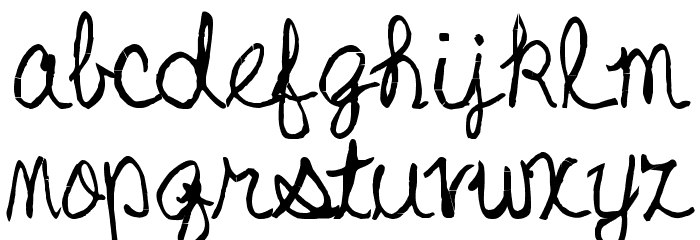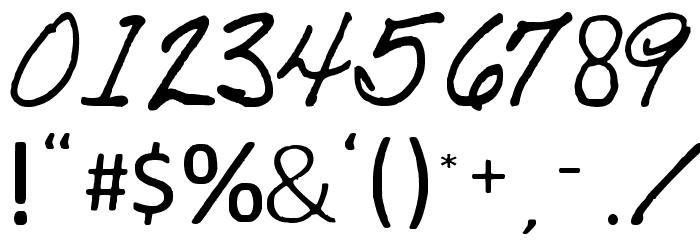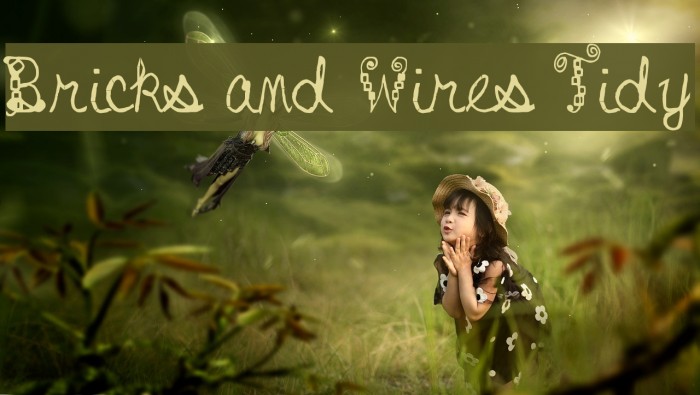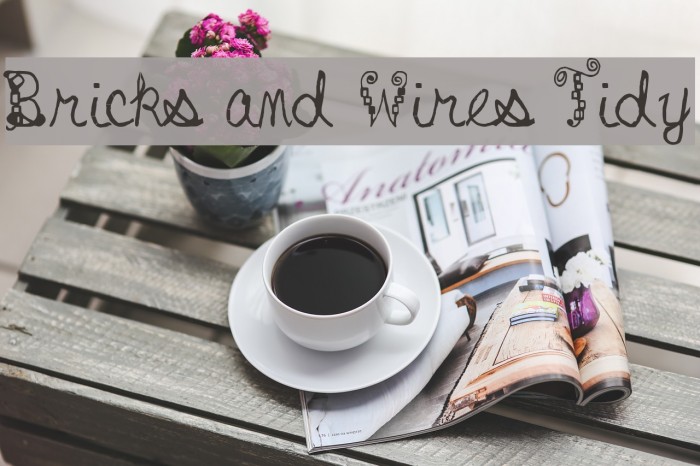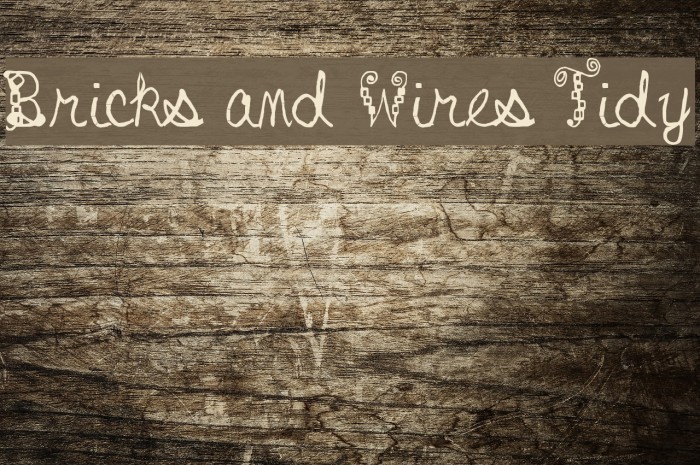
Bricks and Wires Tidy Font
This font features a playful and whimsical design, characterized by its intricate and decorative elements. The uppercase letters are adorned with curly and looped embellishments, giving them a unique and artistic flair. The lowercase letters maintain a more casual and handwritten style, providing a nice contrast to the ornate uppercase. Numbers and special characters follow the same playful theme, making this font ideal for creative and fun projects. The overall appearance is lively and engaging, perfect for capturing attention.
A whimsical and decorative font with playful embellishments.
- Proposed Projects: Ideal for children's book covers, playful branding, creative posters, and artistic invitations.